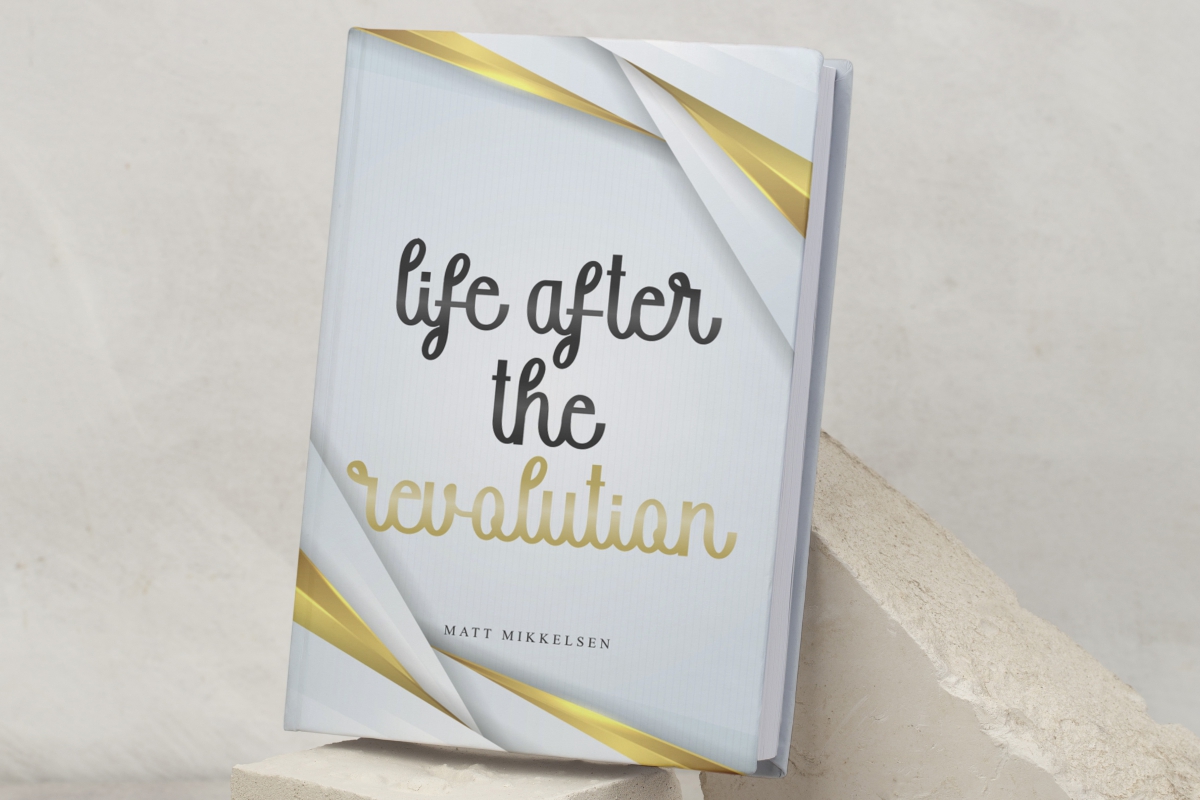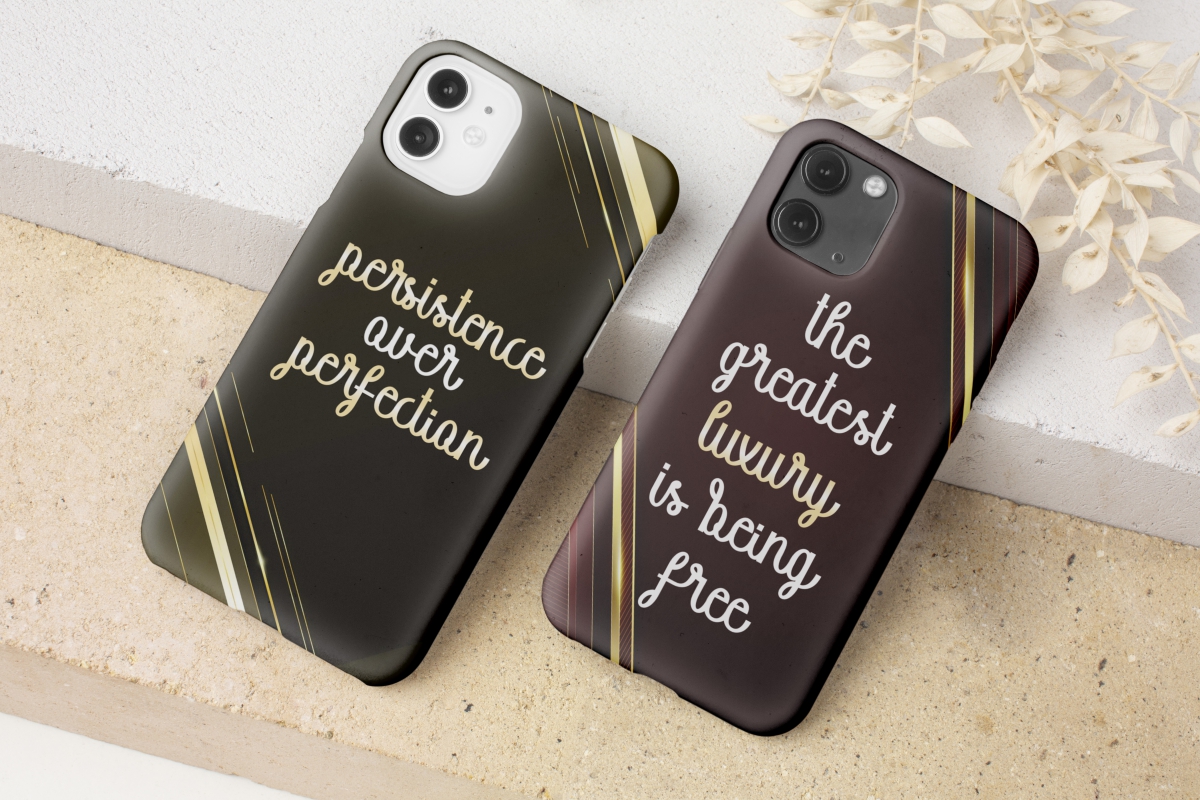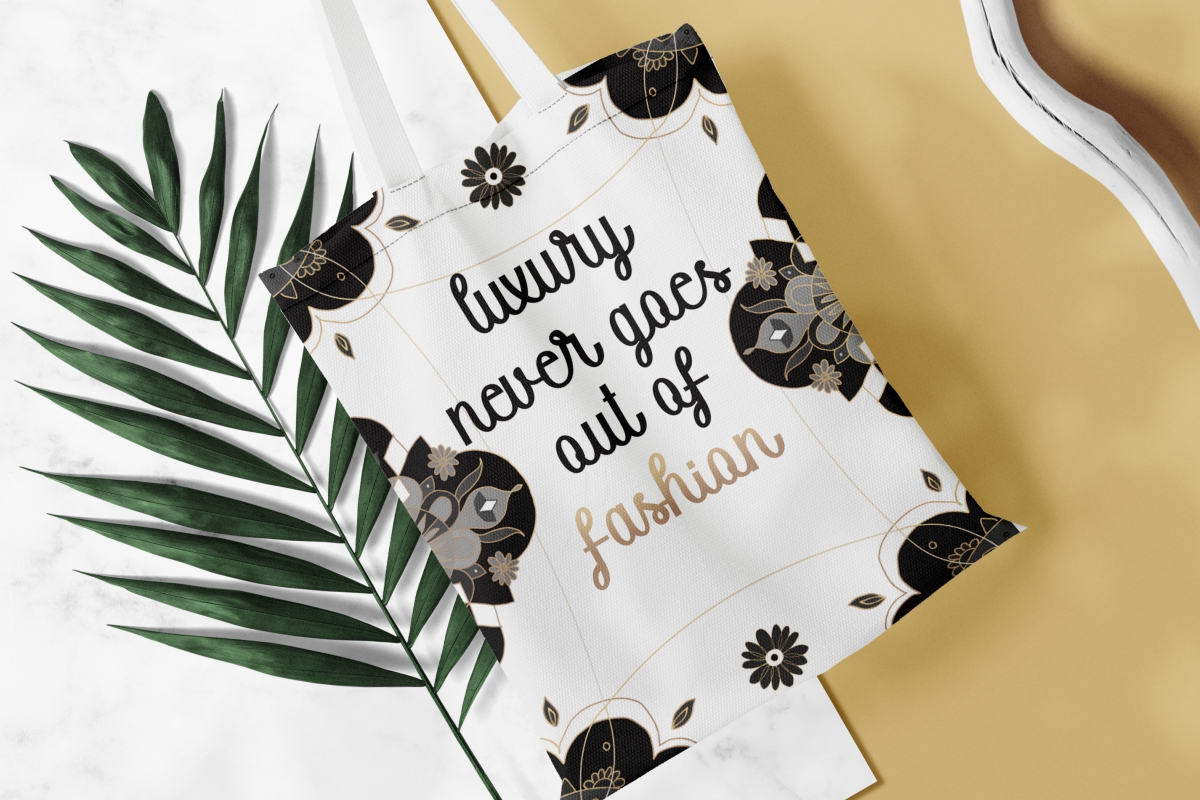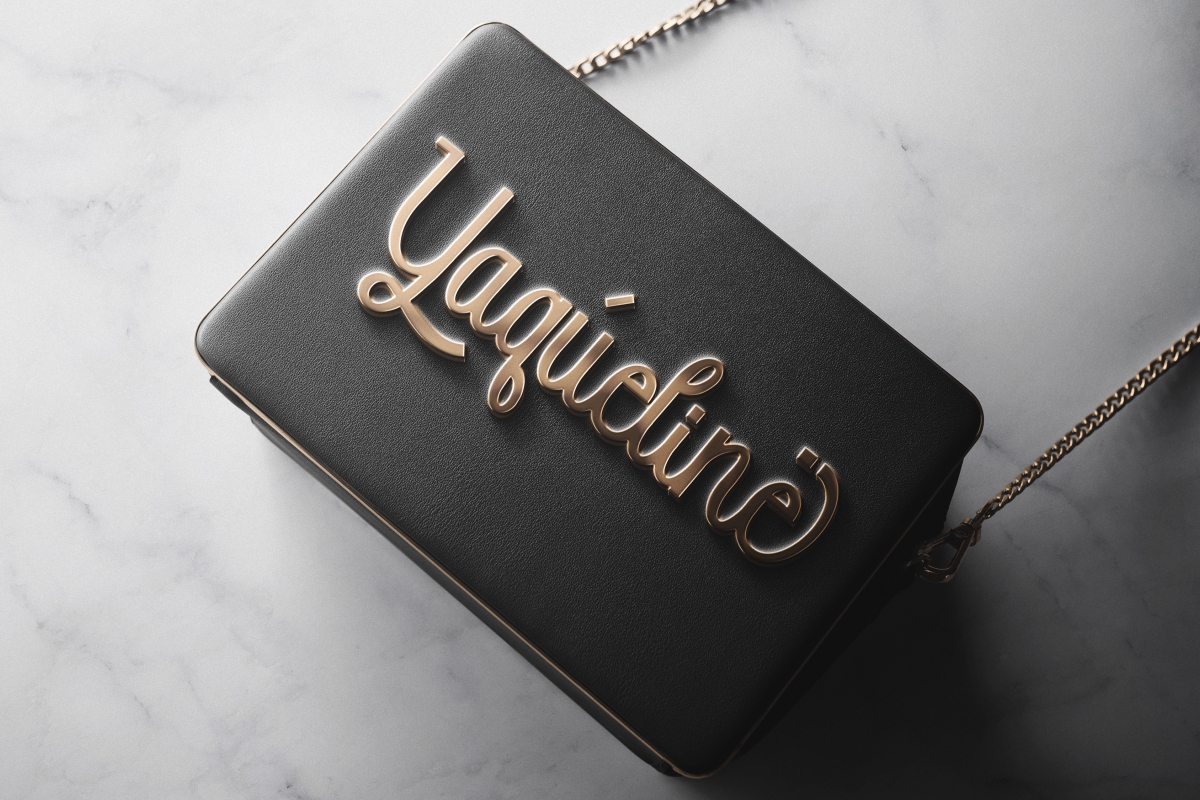
Gold Button Font
Gold Button Script Font
This is a stylish handwriting font created by EdricStudio. Carefully crafted to create the perfect font with a touch of classic, easy to read and suitable for any industry like, architect, boutique, cosmetic, craft, fashion, furniture, jewelry, movie, salon & spa, writer, etc.
Gold Button Font comes with a full set of Uppercase and Lowercase Basic Characters, Number, a large range of Punctuation and Symbol, also Alternate, Ligature. It has a stunning characters set, perfectly managed with well spaced and kerning. Gold Button Font will be great for any projects (with extended license) including: billboard, brandings, brochure, invitation, label, phone case design, quote, and anything related to a touch of classy gold.